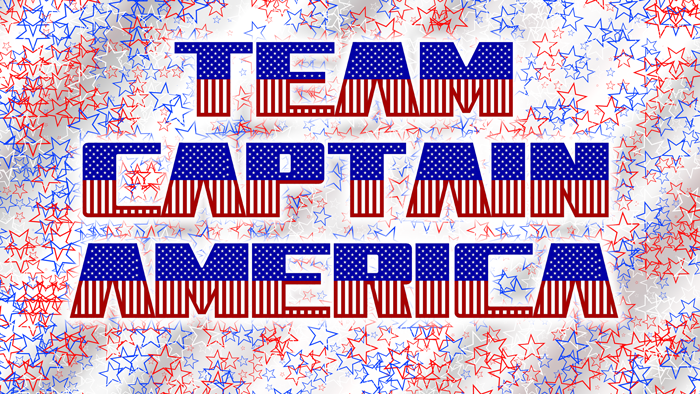
Opening Day of Captain America: Civil War!
Very patriotic. Love it. 10/10+fav
I just hope that the movie be worthy of such a great font like this one, master.
Big letters dressed in stars & stripes. Very nice. A good candidate for chromatic type. How about adding a hint of 3D? 10/10
This is something else; I don't even want to guess how long it must have taken you to build it. I've seen a few other Captain America fonts, but never one with every character flag-based. Its cool; you've done great work. Thanks for sharing it.
Very patriotic for America! I love it!
WOW (thats all i have to say about this font.)